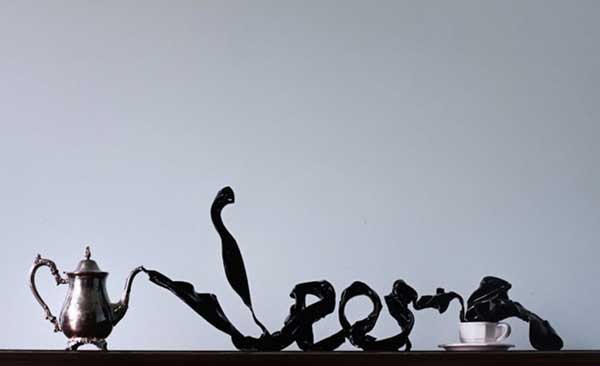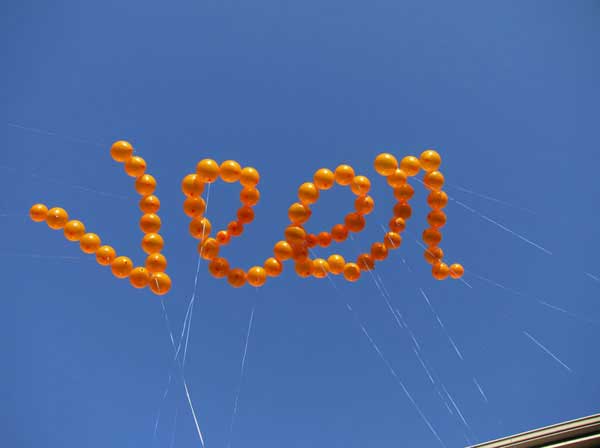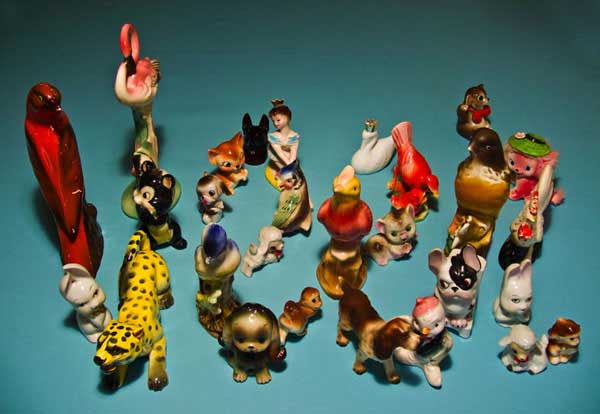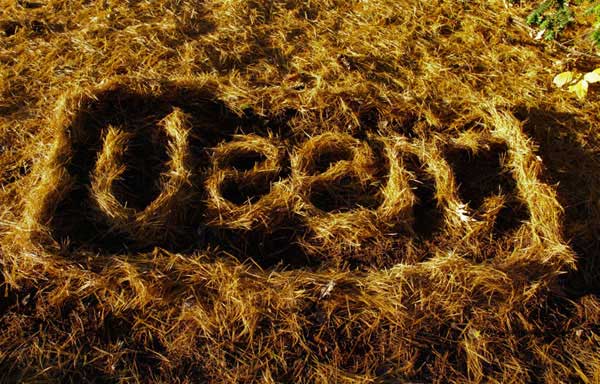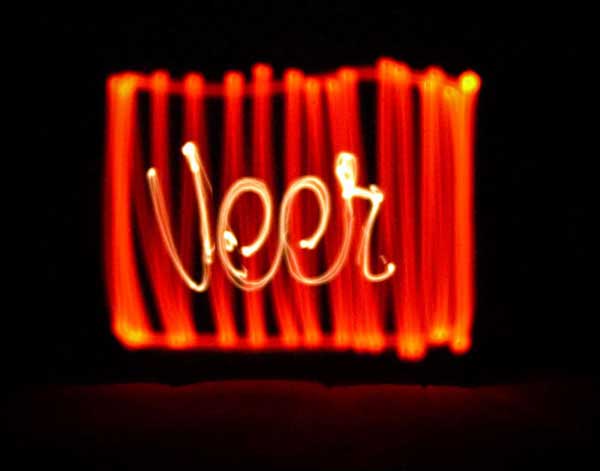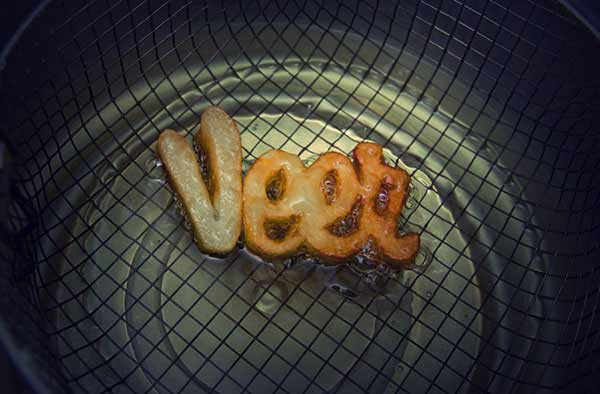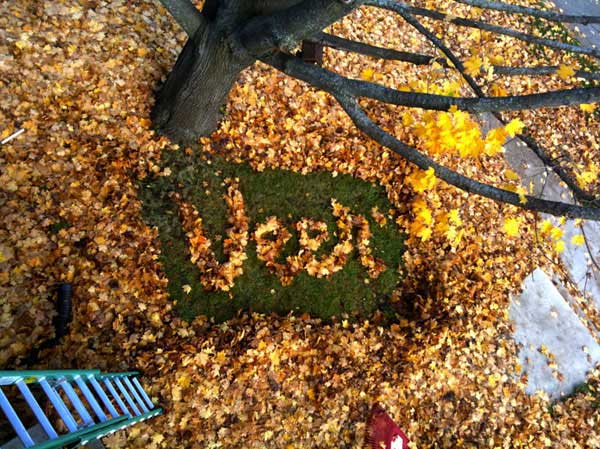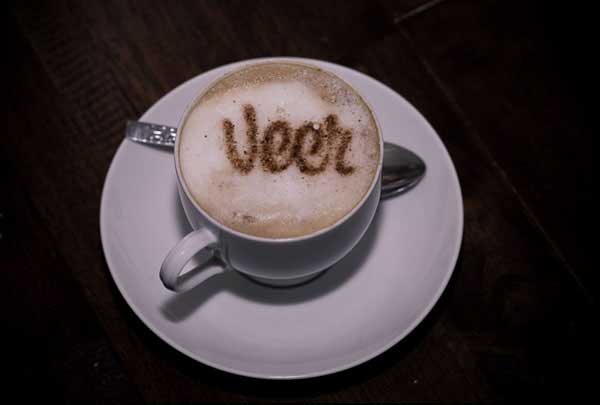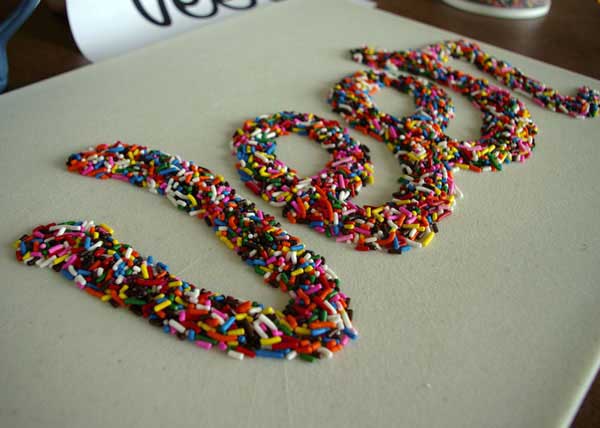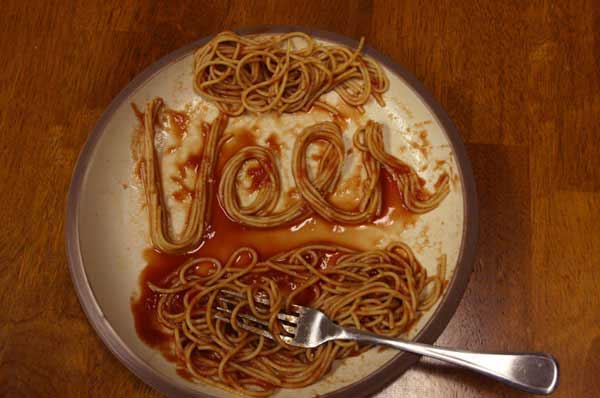
Following on from David Ansett’s post 25 Killer Custom Typefaces – A Brand Design Asset, who better than a font-house to lead the way with custom typefaces. Veer Ideas devotees have been making their own versions of the Veer logo. There are over 500 custom typefaces! From cheese carvings, to balloon sculptures in the sky, you name it, they’ve made it. Here are some of my favourites: